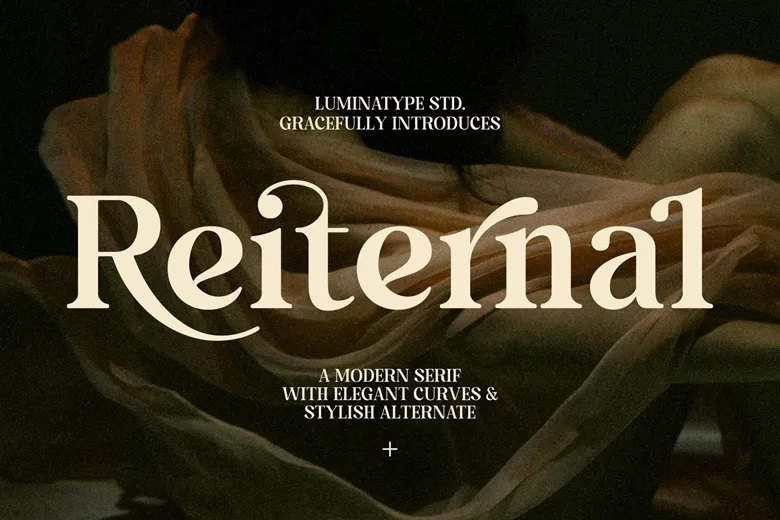
Reiternal Font
Let’s reach with very strong themes, the hang down the liberty and luxury of Reiternal Font, Available 2 Style by Luminatype Studio in Regular and Oblique. Highly Serious is just that – a finely crafted and carefully designed high end font, a serif that is all about finesse. With Reiternal’s dedication, you can infuse your designs with an unparalleled hint of refinement and sophistication.
Reiternal Serif Font